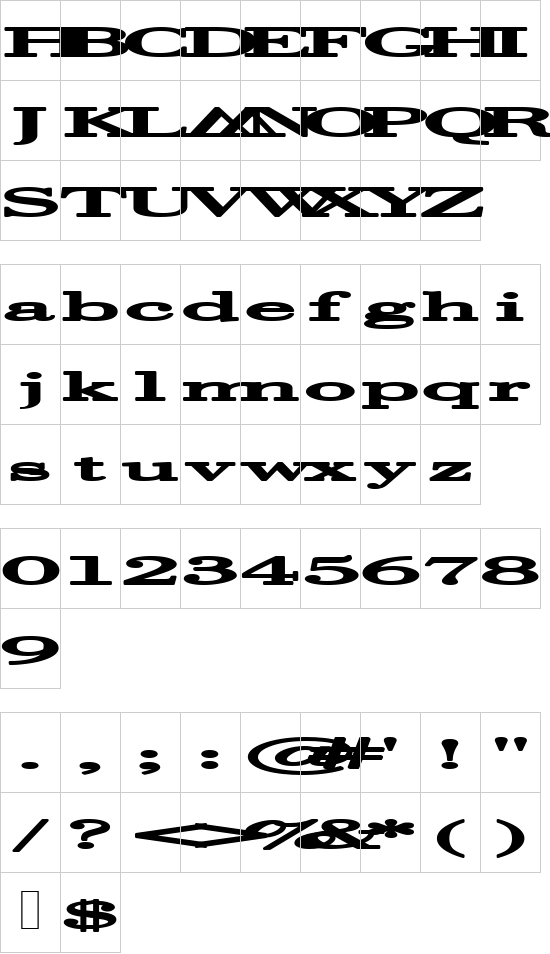
Halcyonia is a heavy serif font with thick, weighty strokes and strong, confident letterforms. The bold serifs and dense uprights give it real presence, balancing classical structure with the kind of mass that commands a headline. It feels traditional, substantial, and sure of itself.
That weight works for magazine headlines, book covers, luxury branding, and posters that want gravitas and impact. It reads best in large, short statements. Halcyonia is free to download as a TrueType file, and you can preview it with your own words to see how the heavy serifs hold the page.